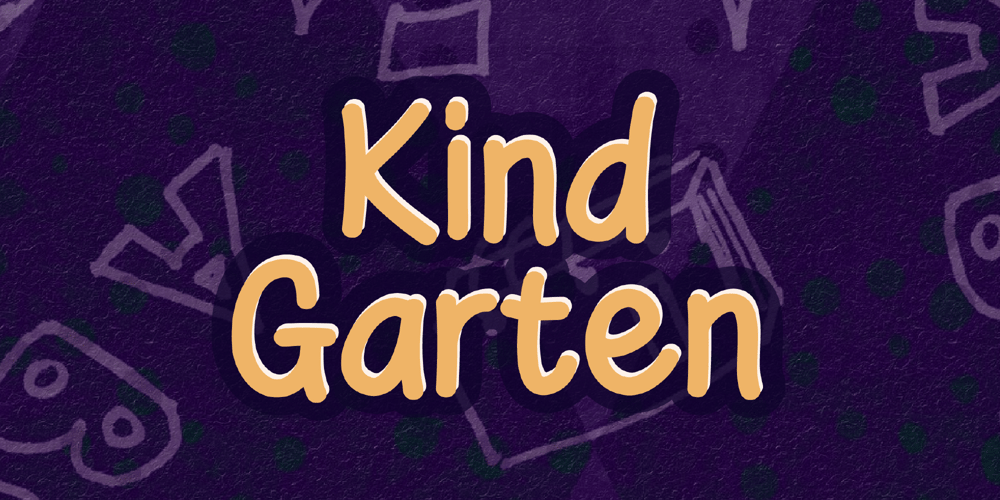
Kind Garten Font Family was designed by Afif Rosadi and published by Alolieli. Kind Garten contains 1 styles and family package options. Meet Kind Garten,Kind Garten is a whimsical handwritten font perfect for kid-friendly designs. With playful curves and charming strokes, it captures the essence of childhood, making it ideal for children’s books, educational materials, and fun invitations. This font stands out with its unique blend of innocence and creativity, adding a touch of magic to any project. Pair it with other playful or clean fonts for a delightful contrast. Embrace the joy of youth with Kind Garten, where every letter is crafted to enchant and inspire both young and young at heart.